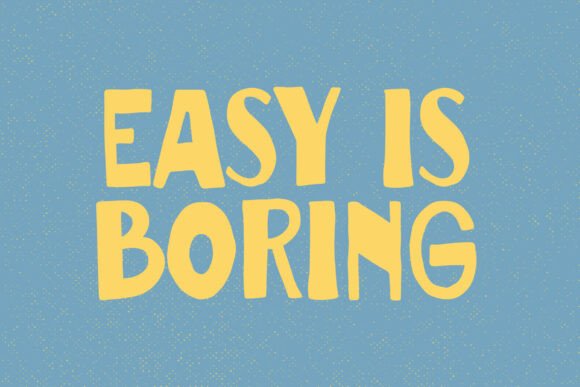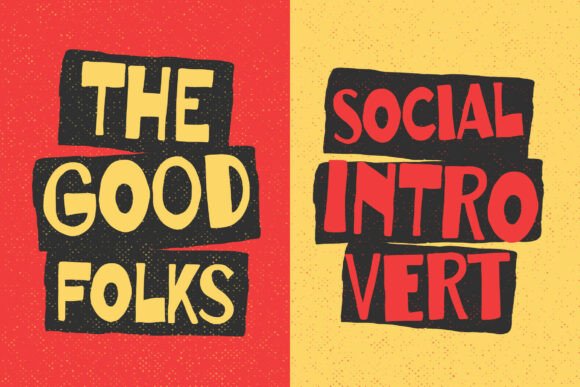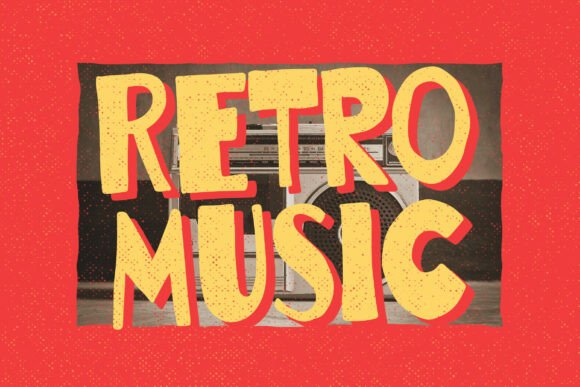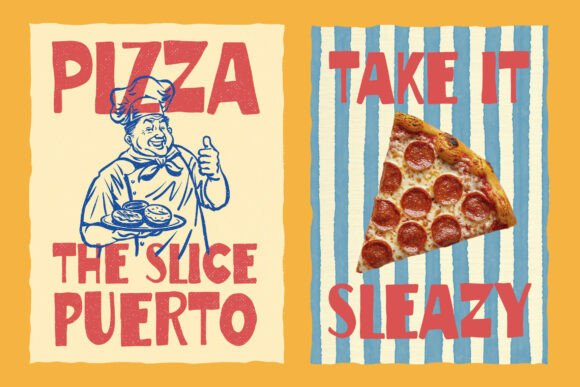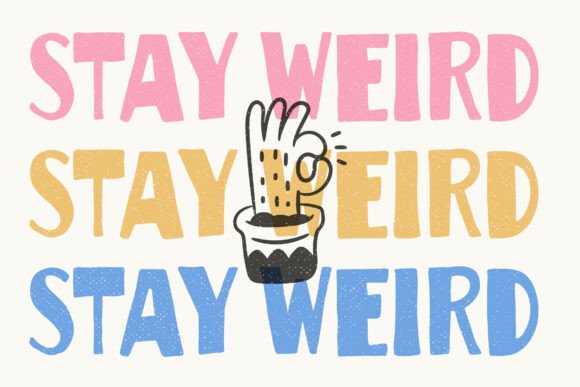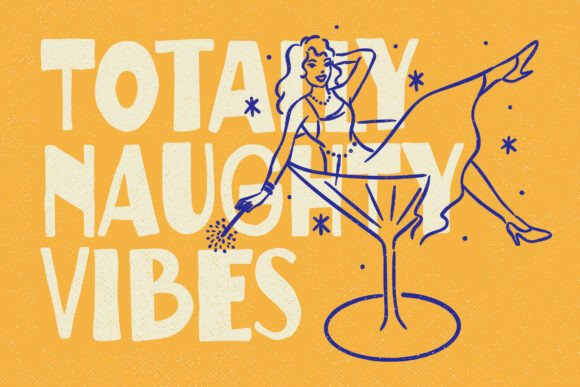
Introduction to Rocket Doodle Font
Have you ever found yourself doodling on a sticky note, a piece of paper, or even on your phone screen, letting your creativity flow without a care in the world? That’s exactly the kind of unbridled energy that the Rocket Doodle Font embodies.
This bold, handmade display font is a treasure trove for designers seeking a unique design resource that exudes personality and character. With its chunky strokes, uneven lines, and “ugly-cute” charm, Rocket Doodle Font is perfect for adding a touch of whimsy to your creative projects, from kids’ posters to branding and illustrations.
Key Features of Rocket Doodle Font
- High-quality, hand-drawn design suitable for creative projects, offering a unique and playful touch.
- Includes a range of characters, including uppercase and lowercase letters, numbers, and special characters, ensuring versatility in creative projects.
Honest Review: Rocket Doodle Font
I recently came across the Rocket Doodle Font, and I’m excited to share my honest review with you. As a designer, I’m always on the lookout for high-quality design resources to enhance my creative projects.
Here are some aspects that work well with the Rocket Doodle Font: ✨
- Unique and quirky design aesthetic that adds a fun touch to any project
However, I did encounter a few limitations: ⚠️
- May not be suitable for corporate or professional projects due to its playful nature
- Doesn’t come with a wide range of font styles or weights
Overall, the Rocket Doodle Font is a great addition to any designer’s toolkit. While it may not be the best choice for every project, it’s a fun and creative resource that can add a unique touch to your work.
The Rocket Doodle Font is a versatile and creative design resource that offers a unique and playful style. With its transparent background, it’s perfect for adding a touch of whimsy to your projects. Whether you’re working on a personal creative project or a professional design, this font is a must-have.
The Rocket Doodle Font is perfect for:
- Designing children’s books and educational materials.
- Creating custom graphics and illustrations for social media and marketing campaigns.
- Adding a playful touch to wedding invitations and party decorations.